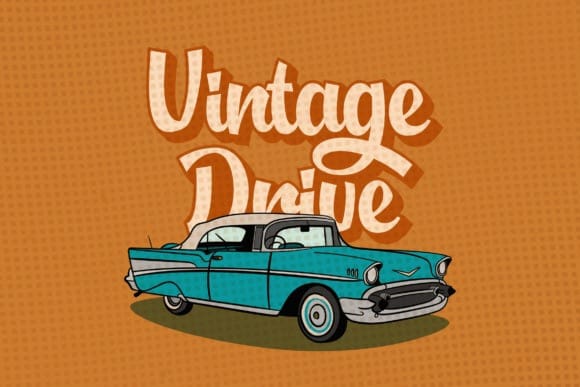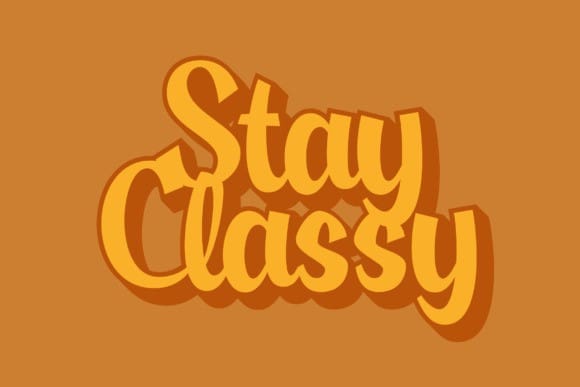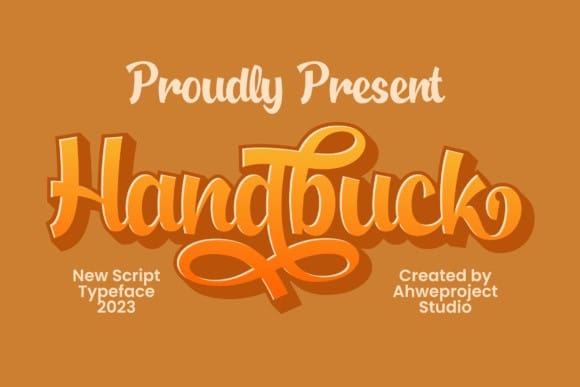
Handbuck Font
Handbuck Font is a stunning display script font that seamlessly blends classic and modern design elements to create a unique and stylish typeface. This font is perfectly made to be applied especially in logos, and other various formal forms such as invitations, labels, logos, magazines, books, greeting/wedding cards, packaging, fashion, makeup, stationery, novels, labels, or any type of advertising purpose.